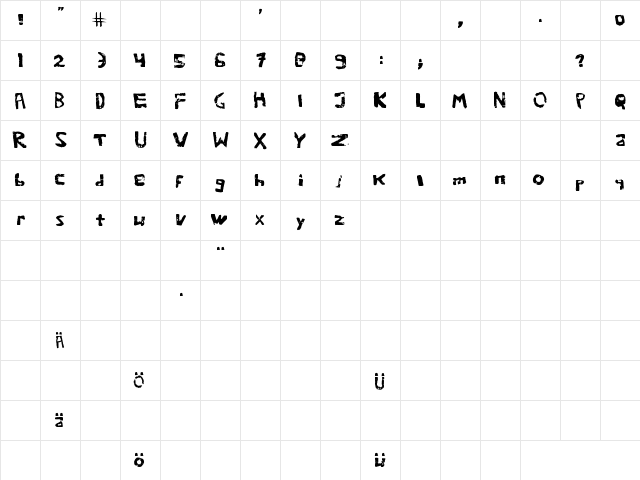
we are potatoes Regular
Design Context for we are potatoes Typeface
we are potatoes is a composed and adaptable typeface that performs quietly and consistently across a wide range of design contexts.